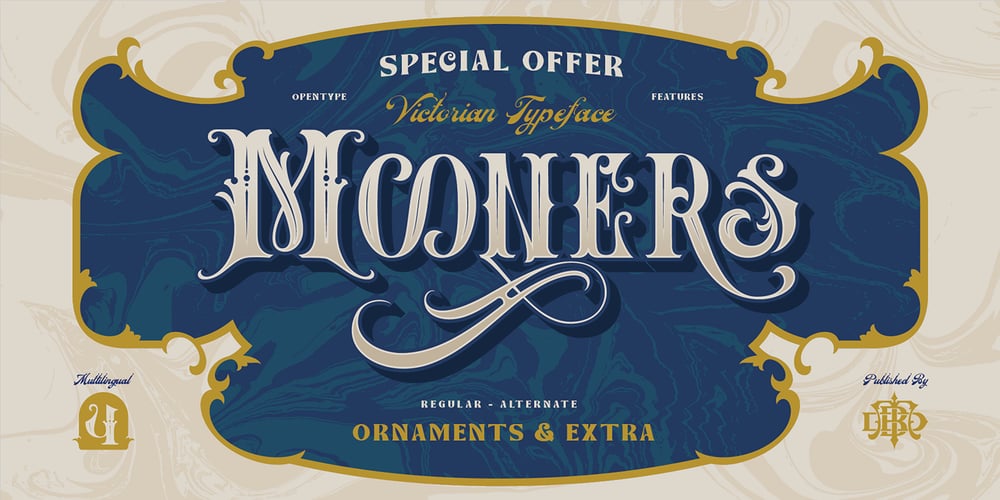
Mooners Font Family was designed by Eric Kurniawan and published by Burntilldead. Mooners contains 5 styles and family package options. Make your design as a time machine with “Mooners” typeface. Inspired by the decorative victorian advertising poster, Mooners came to make make your document, poster, logo, etc… perfectly have a vintage victorian vibes.It’s a solid combination that can bring your design, logo, document, website, etc. back to 1800 decade. Multilingual fonts-family and playful one with 165 alternate characters.